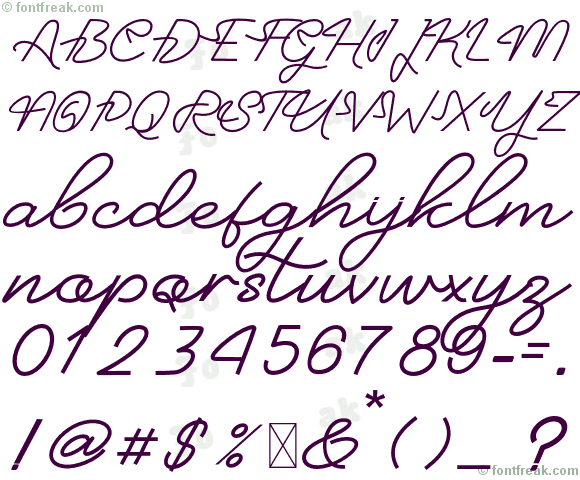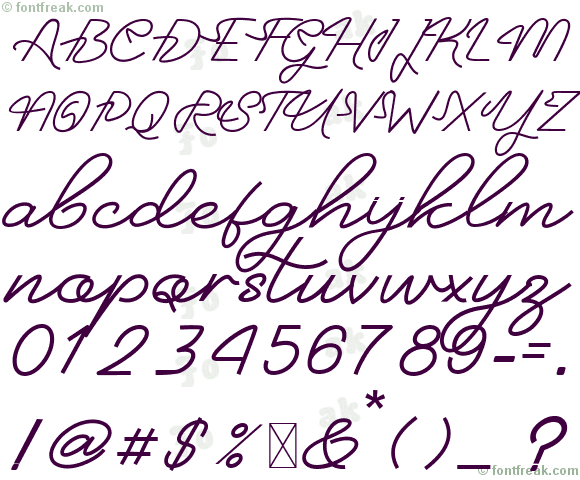
Neon Bines
About Neon Bines
Neon Bines by Eknoji Studio is a striking display font that captures the essence of modern design with its eye-catching aesthetic. This font features fluid, curved lines that mimic the glowing effect of neon lighting, making it perfect for projects that seek to evoke a sense of vibrancy and energy. The stroke weight is consistent, with smooth transitions that highlight its decorative nature. The spacing between characters is well-balanced, allowing for readability while maintaining a stylish appearance.
Ideal for a variety of creative applications, Neon Bines excels in settings such as event posters, trendy café menus, and fashion branding. Its unique flair makes it especially suitable for music-related graphics, concert promotions, and nightlife advertising, where it can draw attention and convey excitement. Additionally, it can enhance digital content for social media posts, providing a visually appealing touch that resonates with audiences.
The target audience for this font includes graphic designers, small business owners, and content creators who are looking to add a modern twist to their projects. Whether you’re crafting a logo or designing promotional materials, Neon Bines provides an engaging option that stands out in a crowded marketplace. The freeware license allows users to incorporate it into both personal and commercial projects without any financial burden.
What sets the Neon Bines font apart is its ability to merge contemporary design with a nostalgic nod to classic neon signage. This combination makes it a versatile choice for anyone looking to infuse their work with a sense of fun and creativity. Don’t miss the opportunity to elevate your designs with the Neon Bines font free download, and let your projects shine with this unique typographic gem.